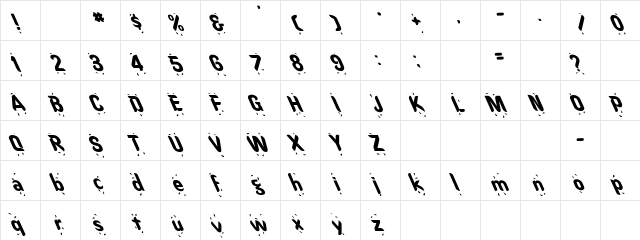
Oregon WetLefty Regular
Oregon WetLefty is a composed and adaptable typeface that performs quietly and consistently across a wide range of design contexts.